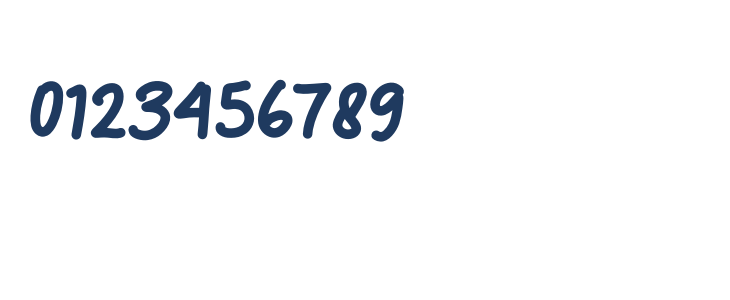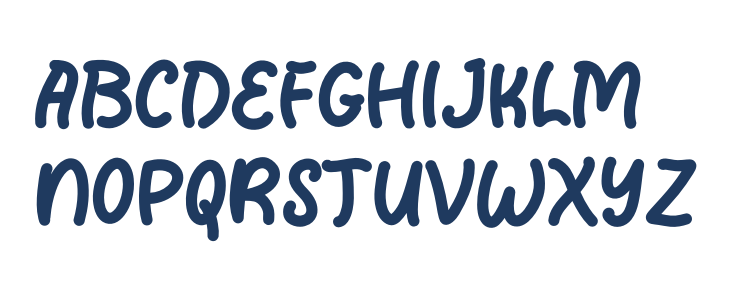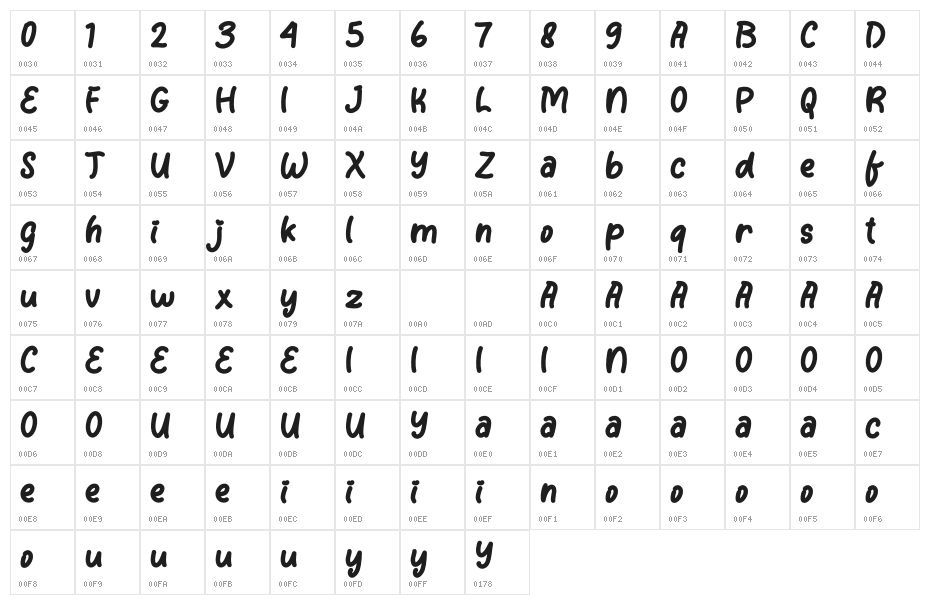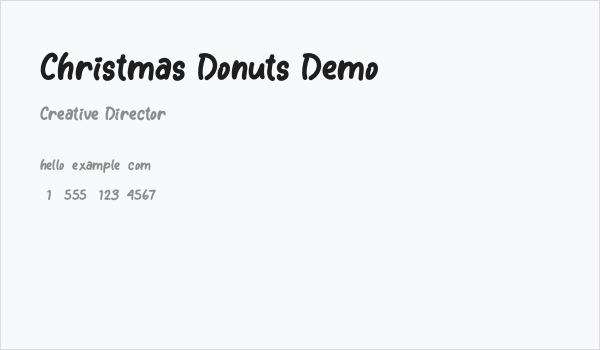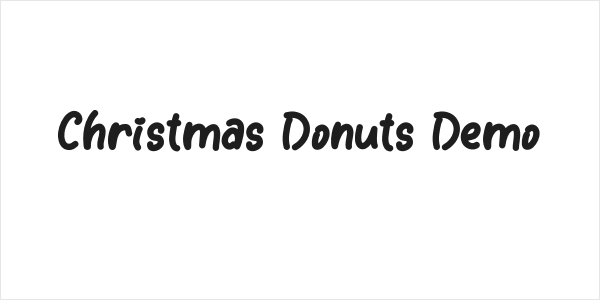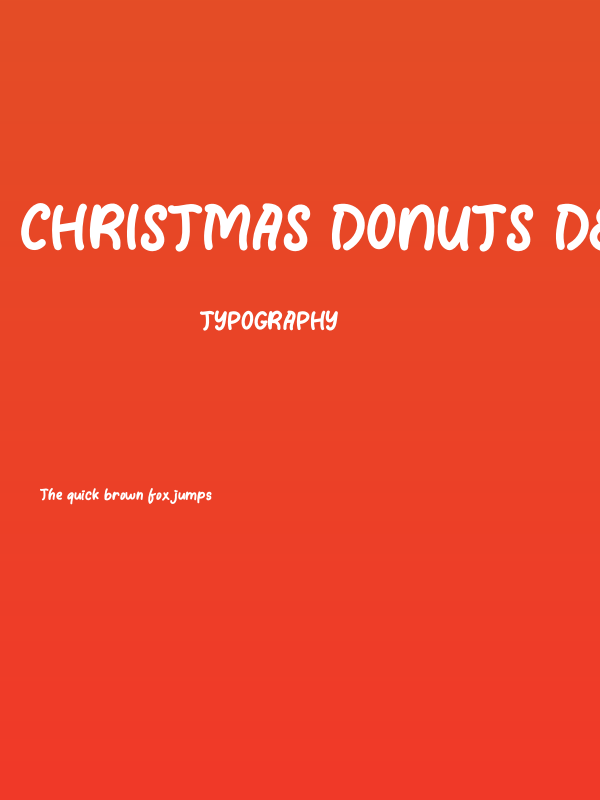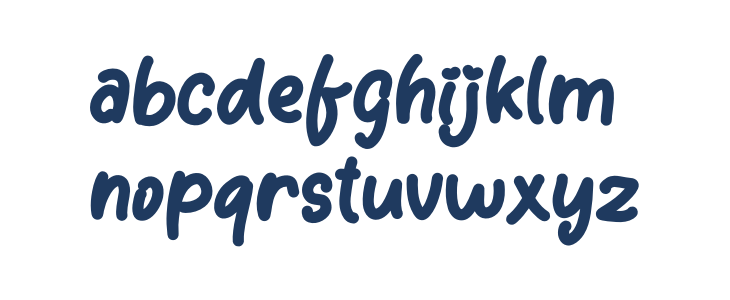
Christmas Donuts Demo Font
Christmas Donuts Demo Description
A playful, rounded handwritten font with thick, consistent strokes and a casual, friendly appearance. The characters are bold, with smooth curves and slightly irregular forms, giving it a whimsical and approachable feel.
| Overall Style | Playful, Decorative, Casual |
| Use Case | Headlines, Posters, Greeting cards, Logos |
| Proposed Projects | Children's books, holiday cards, posters, playful branding, invitations. |